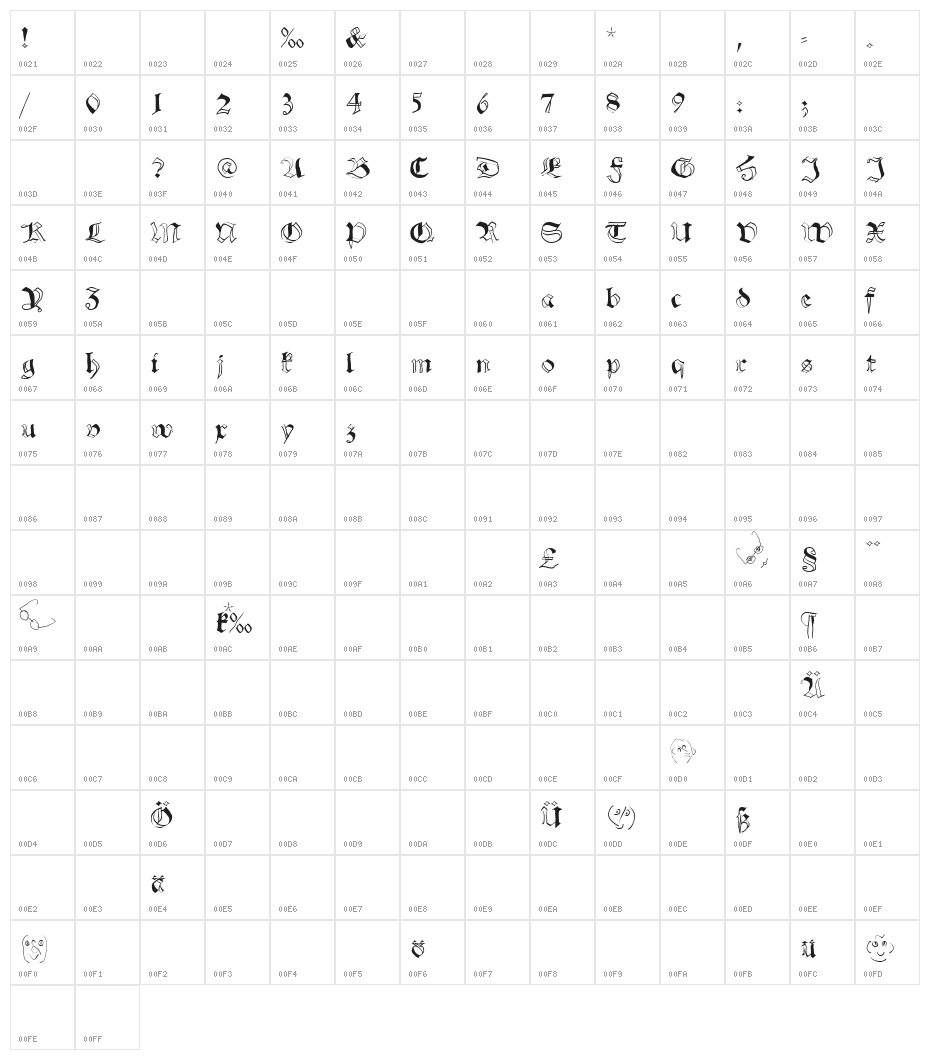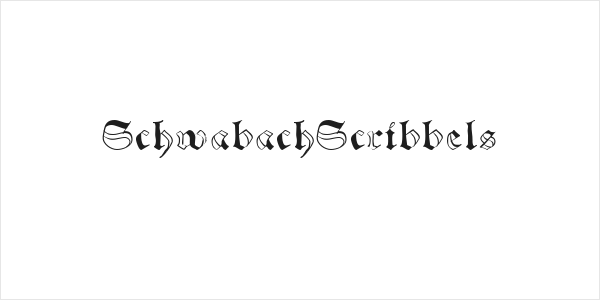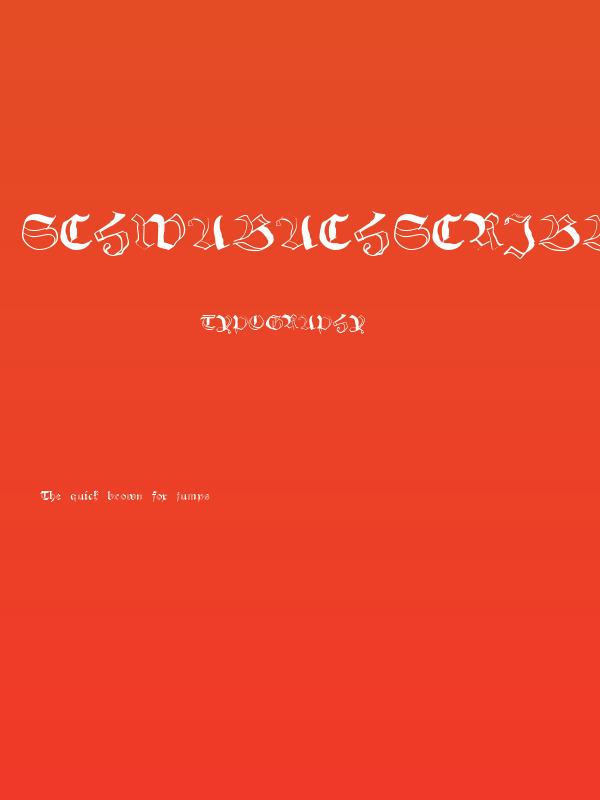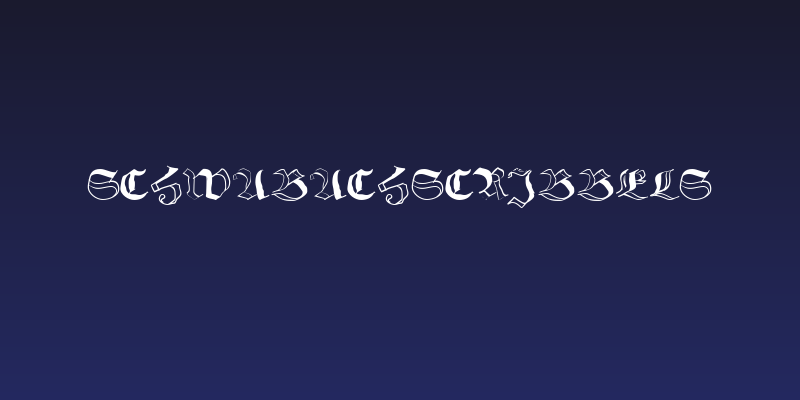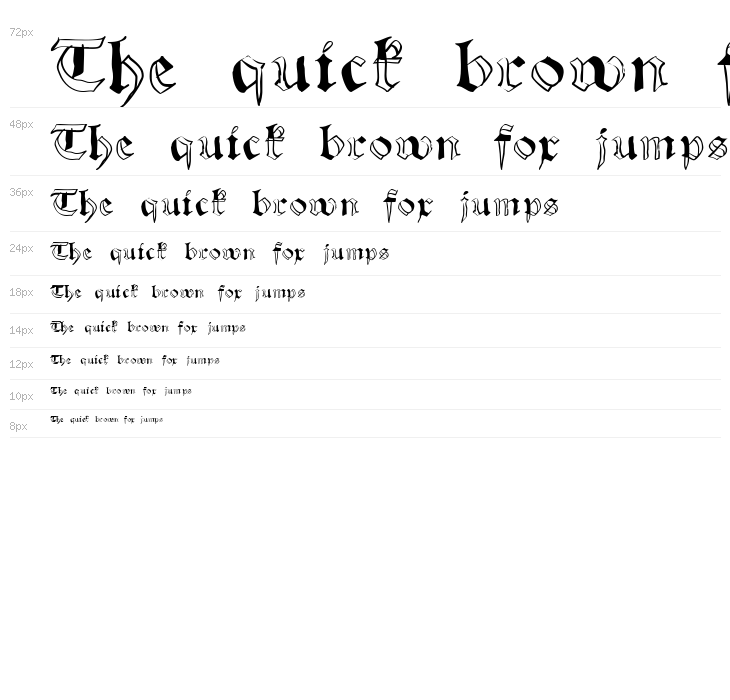
SchwabachScribbels Font
SchwabachScribbels Description
This font features a traditional blackletter style, characterized by its intricate and ornate letterforms. The uppercase letters exhibit sharp, angular lines with pronounced serifs, while the lowercase letters maintain a similar style but with slightly softer curves. The numbers and special characters are crafted with the same attention to detail, offering a cohesive and historical aesthetic. The overall appearance is reminiscent of medieval manuscripts, making it ideal for projects that require a touch of historical or gothic flair.